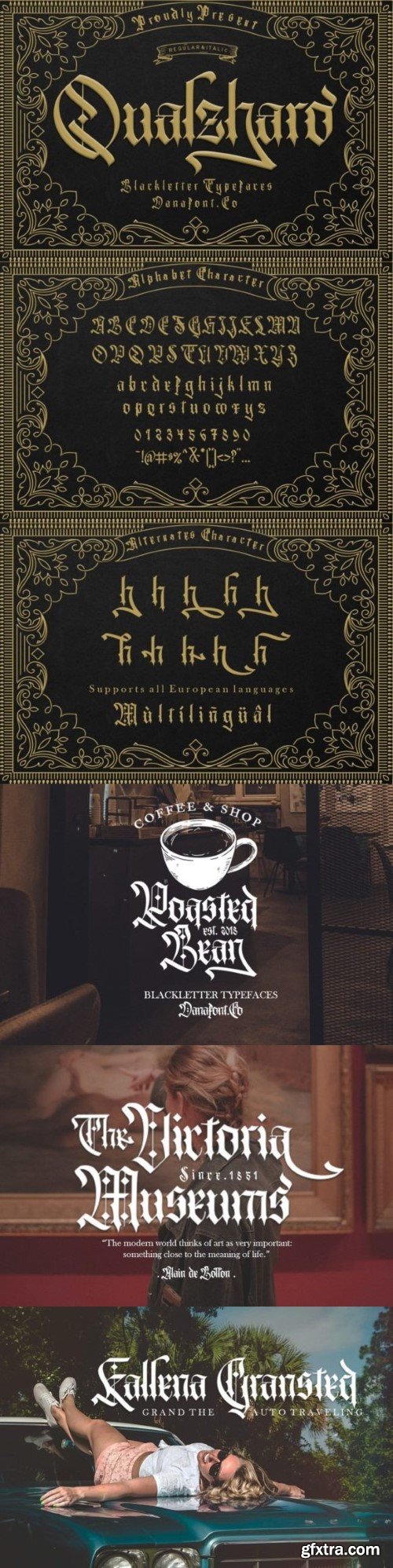
qualzharo font
The Qualzharo Blackletter font comes with beautiful alternate characters and was designed to deliver stylish elegance. Its classic style is very suitable for invitations, labels, menus, logos, fashion, make-up, stationery, letterpress, romantic novels, magazines, books, greeting/wedding cards, packaging, labels, etc.